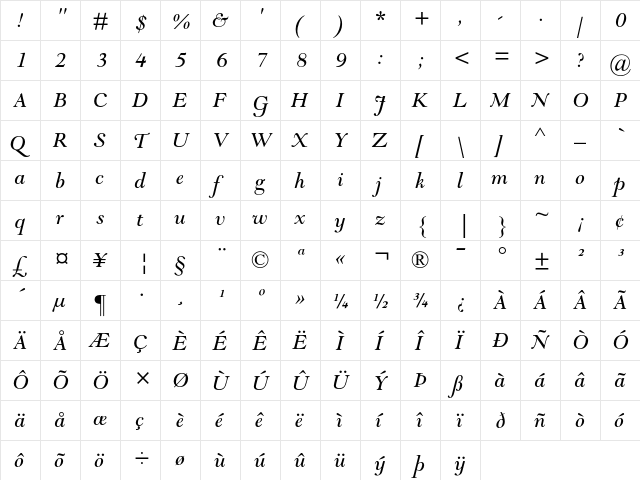
Goudy Modern MT Italic
Design Context for Goudy Modern MT Typeface
Goudy Modern MT takes a measured approach to typography — its balanced proportions and neutral character make it a reliable workhorse for both digital and print work. Its italic angle brings a sense of urgency and motion to the letterforms.
Pro Tip: Try Goudy Modern MT for annotation and caption copy alongside an upright companion — the contrast in angle creates a dynamic but ordered typographic system.